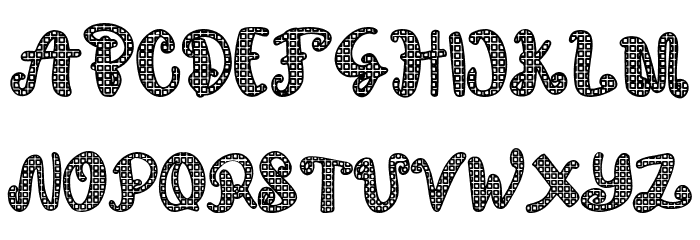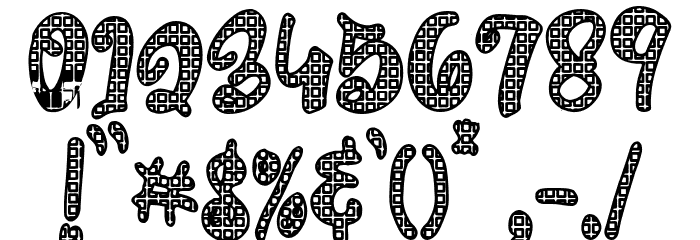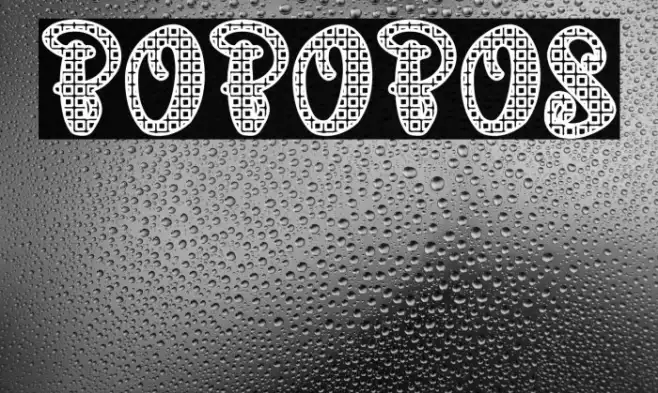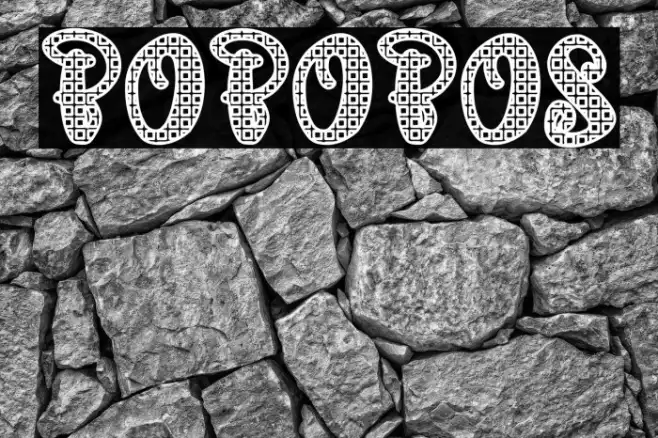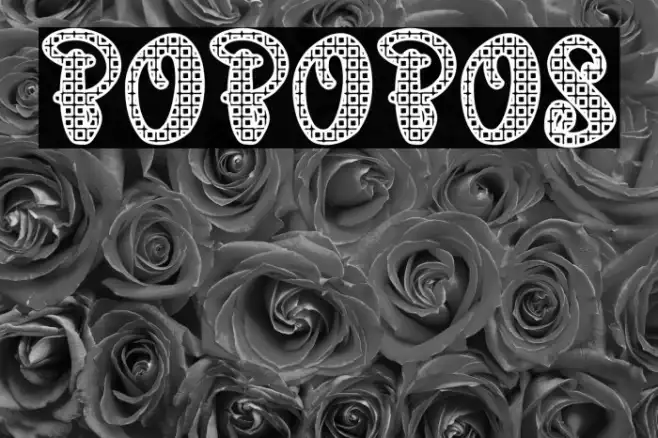
Bobobos Font
This font features a playful and whimsical design with a unique checkered pattern filling each character. The letters are bold and rounded, giving them a friendly and approachable appearance. The uppercase and lowercase letters maintain a consistent style, while the numbers and special characters follow the same playful theme. The overall look is decorative and eye-catching, making it suitable for creative and fun projects. The intricate pattern within each character adds a layer of complexity, making it stand out in any design.
A playful, checkered decorative font with bold, rounded characters.
- Font: Bobobos
- Proposed Projects: Ideal for children's books, playful branding, party invitations, and creative posters.